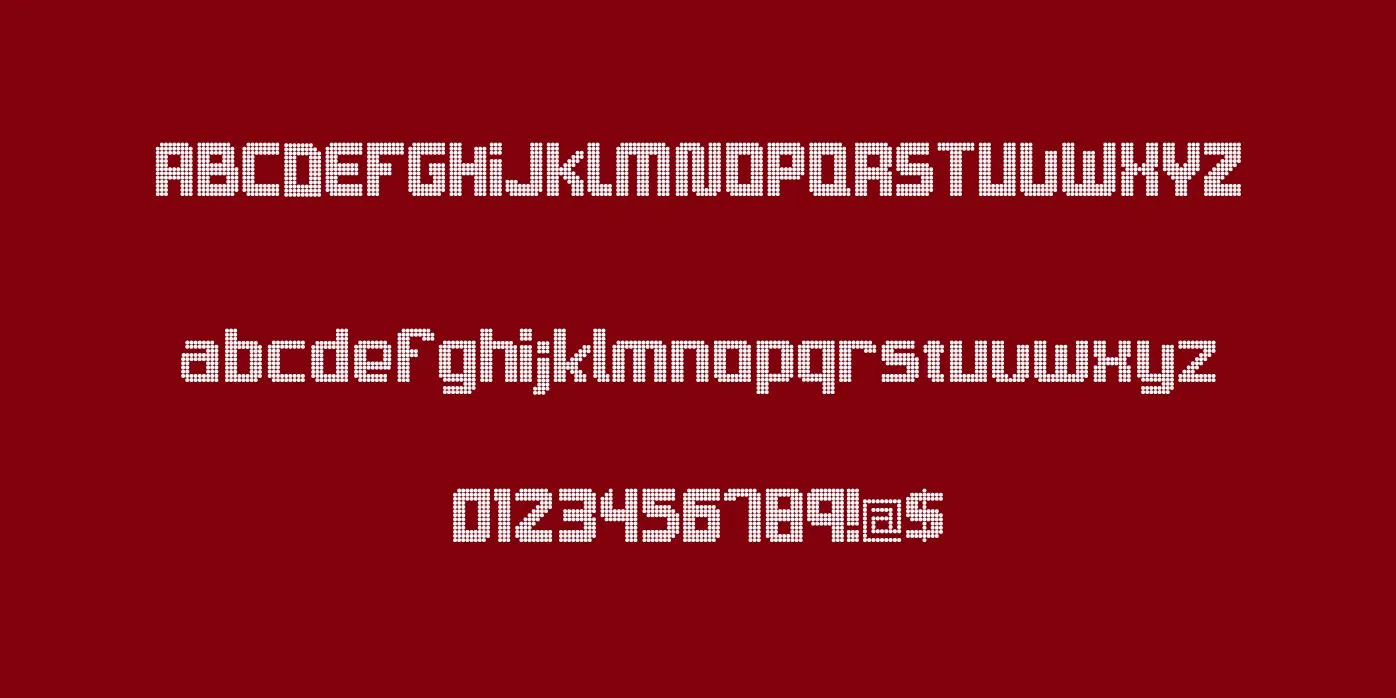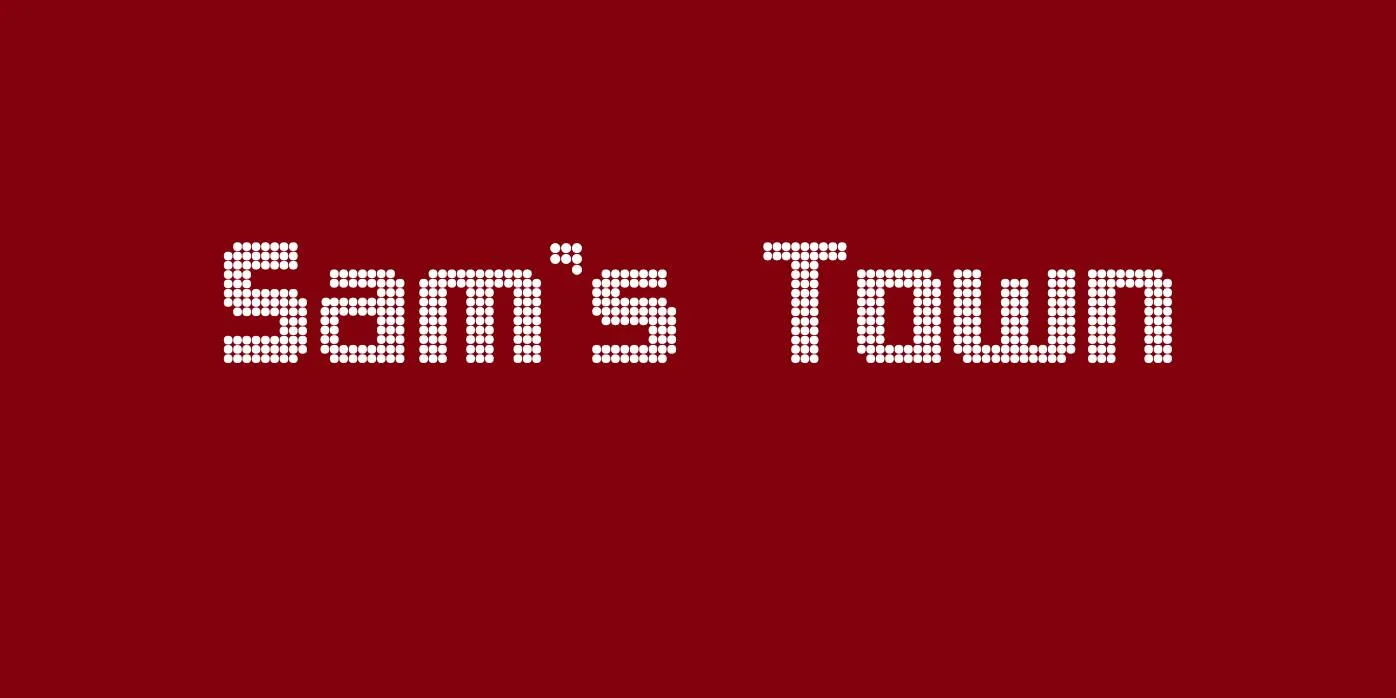
Sams Town Font
We discuss a very amazing font Sam’s Town Font. It is a techno LCD font it was designed by Brian J. Abe. All rights are reserved by Brian J.
Abe. It is a very different font you can use it to make many different projects. You can pair it with other fonts like lcd font to give a more attractive and amazing look to your project. An online generator tool is also available which can show your simple text into a very stylish look without downloading the font.
It contains 230 characters, 80 glyphs, and 1000 units per Em. The weight of the font is Bold and its width is medium (normal). The pattern nature of this font is bold which gives a very attractive look to your projects. It supports file format TTF (TrueType Font) and OTF (Open Type Font) and you can use it on so many different devices such as PC, LCD, MAC, and Linux.
Usage This font is a very unique and amazing techno font. It can be used to make different types of projects. It has characters, capital letters, small letters, punctuations, symbols, and special characters. You can use it in all technology-related projects.
It is good to use on mobile phones and LCDs. It can also be used for techno-related programming and other display purposes. The only drawback it has is it is not easy to read in small-size projects. You can use this font to make different projects in Canva and CSS.
Many other projects can also be edited or made in Adobe Photoshop and other Illustrators by using this font. It is good for web browsing and any type of text message. You can use this font in word processing and much more. It is often used to print on T-shirts also.
It is a very popular and amazing font that can be used on LCDs and mobile phones to make different types of projects. Who created the Sams Town Font? It was designed by Brian J. Abe.
It can be used to make various projects but the only drawback it has is it can be difficult to read in small-size projects.